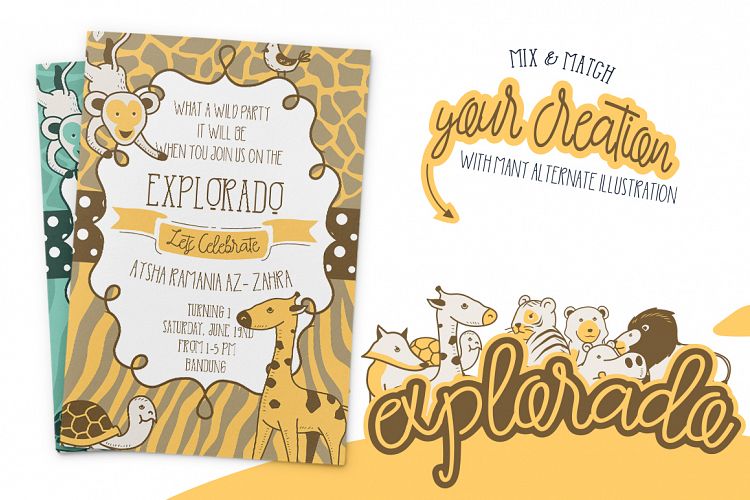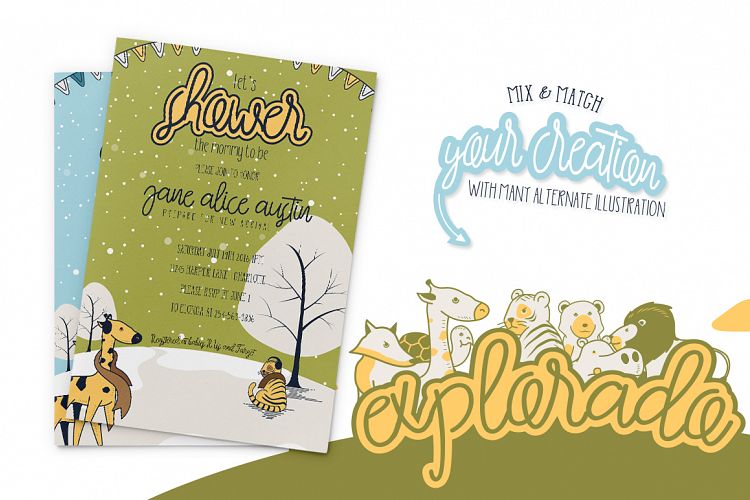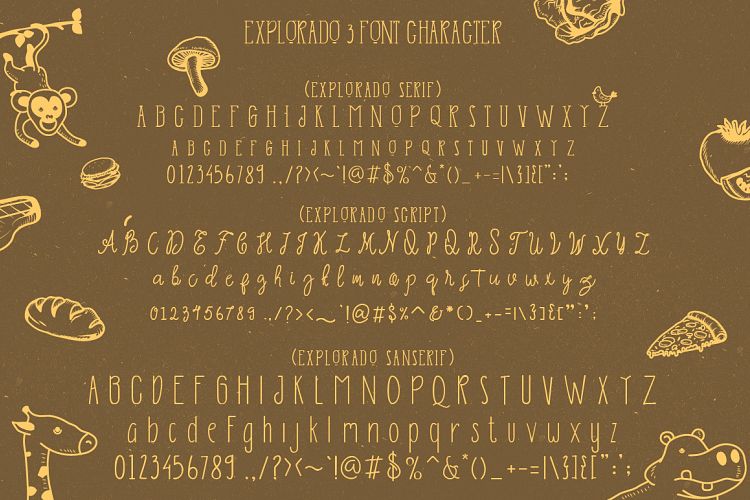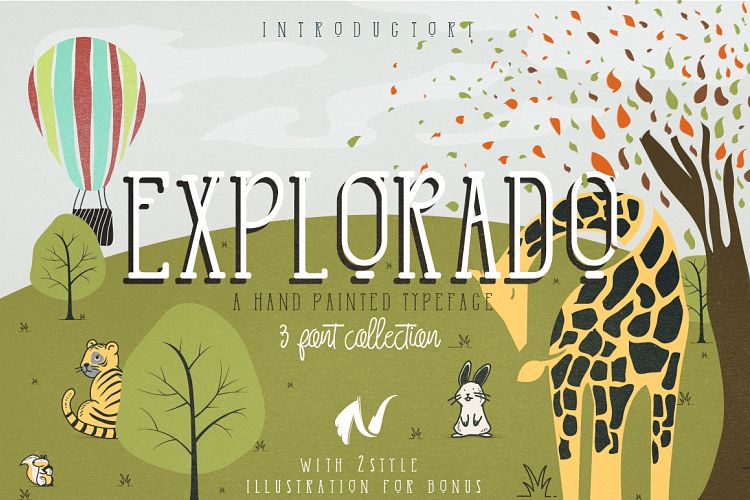
Explorado Font Family
Explorado Typeface is a modern hand painted font. Explorado
is stretches high, is thin and mixes serif, sans serif and script type fonts
together in this collection of 3 fonts.